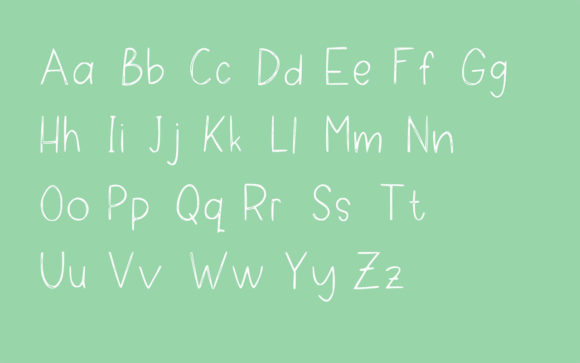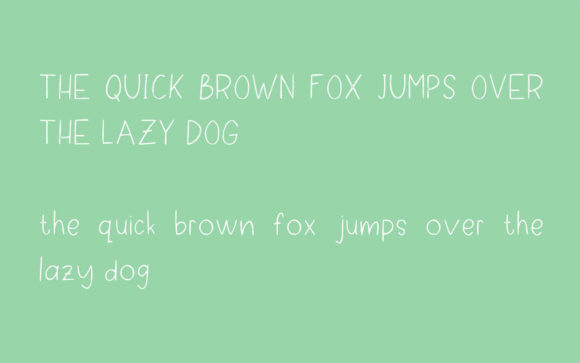
Introduction to School Project Font
School Project is a sweet and friendly handwritten font.
Key Features of School Project Font
Why Choose School Project Font?